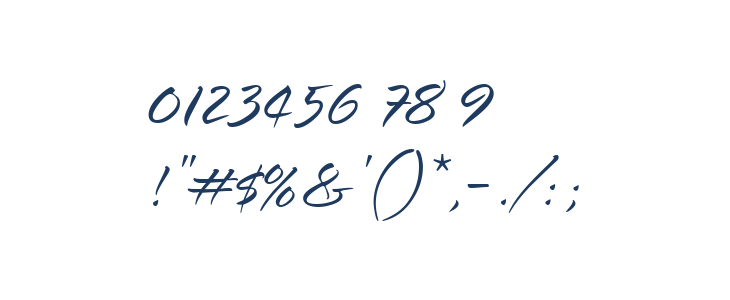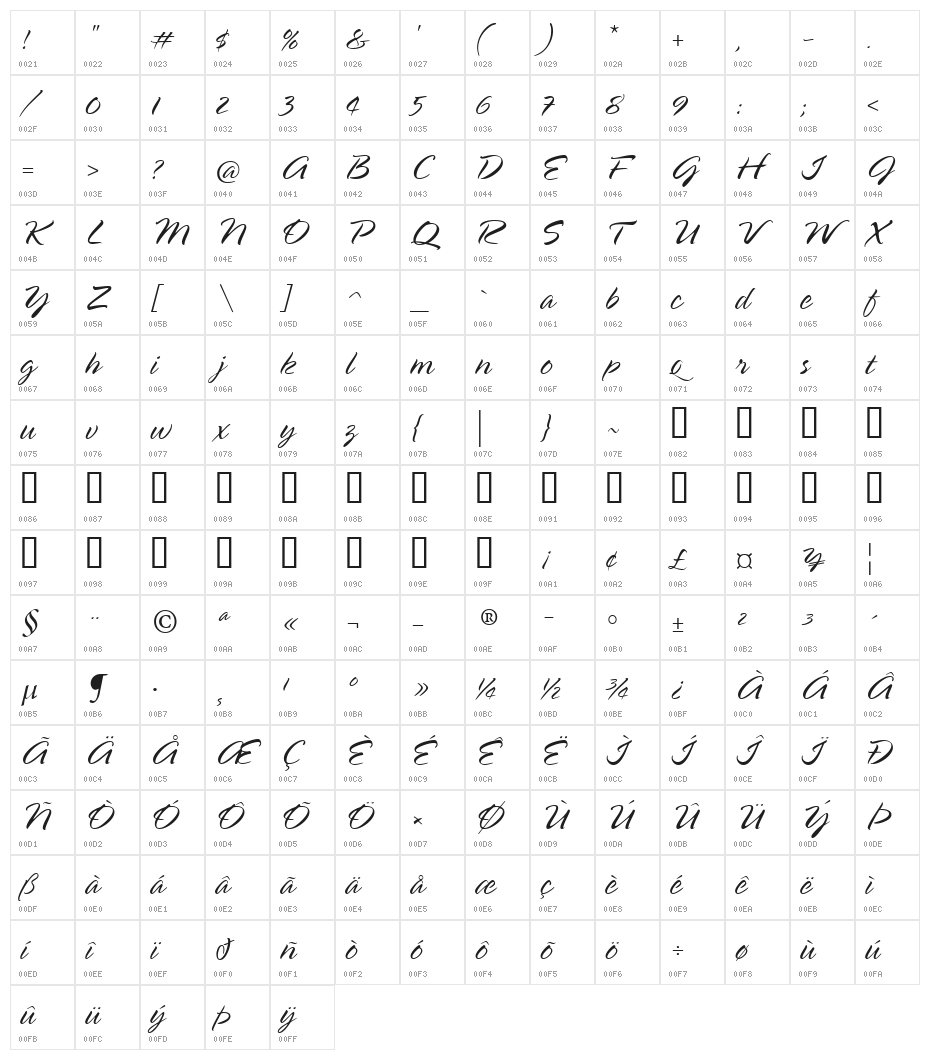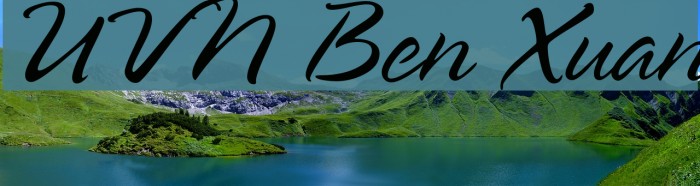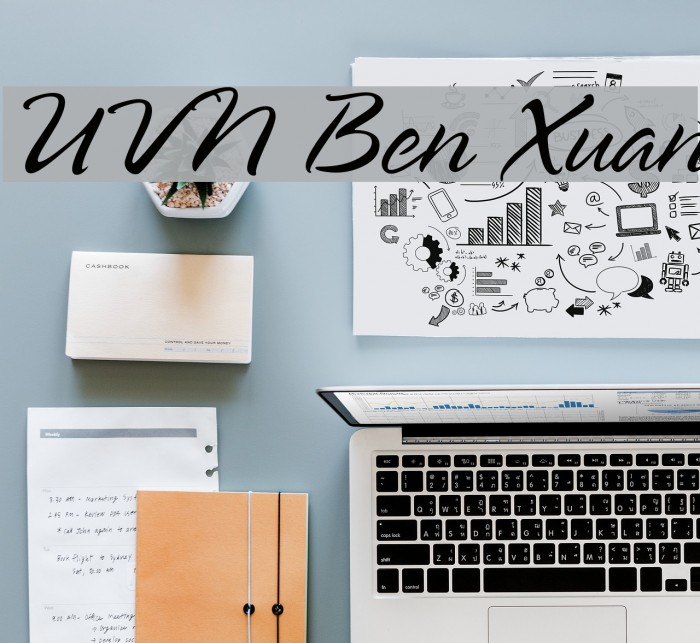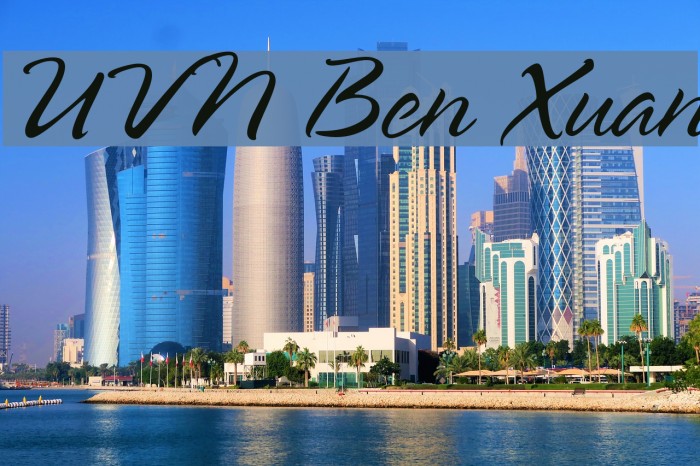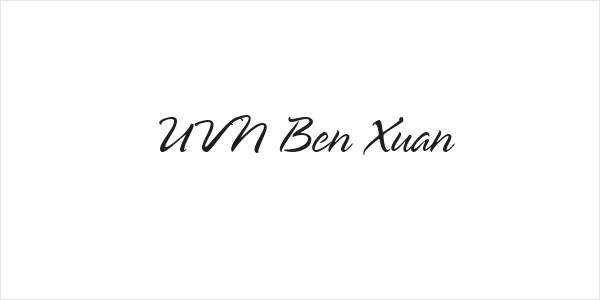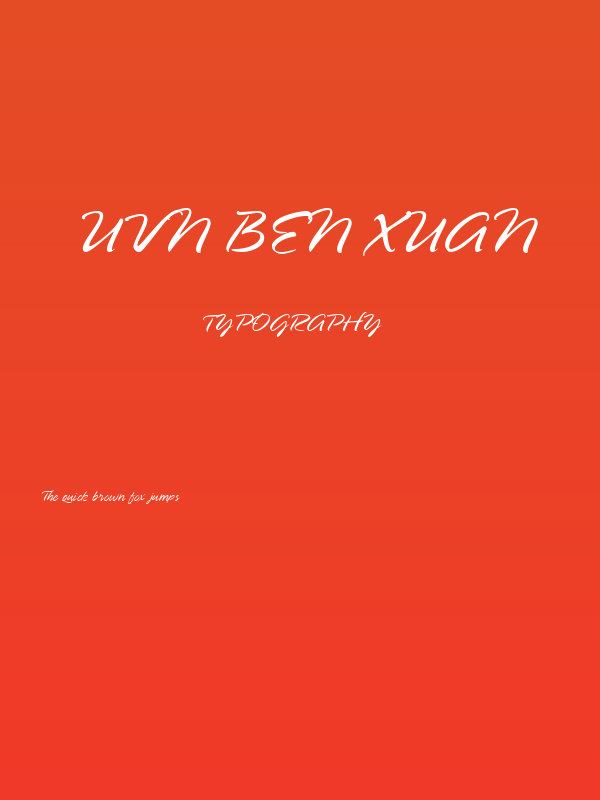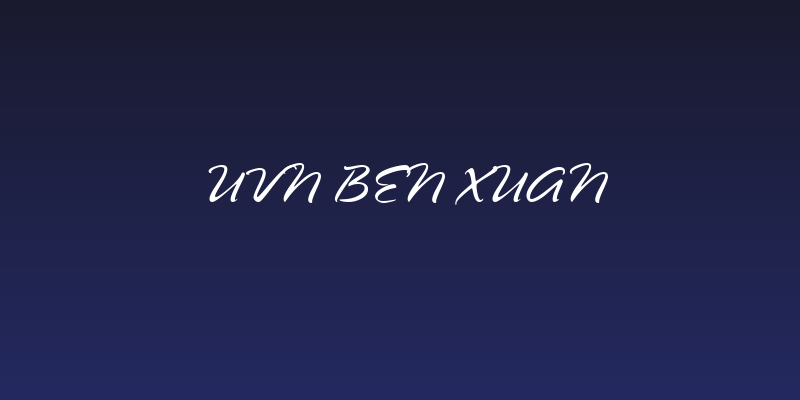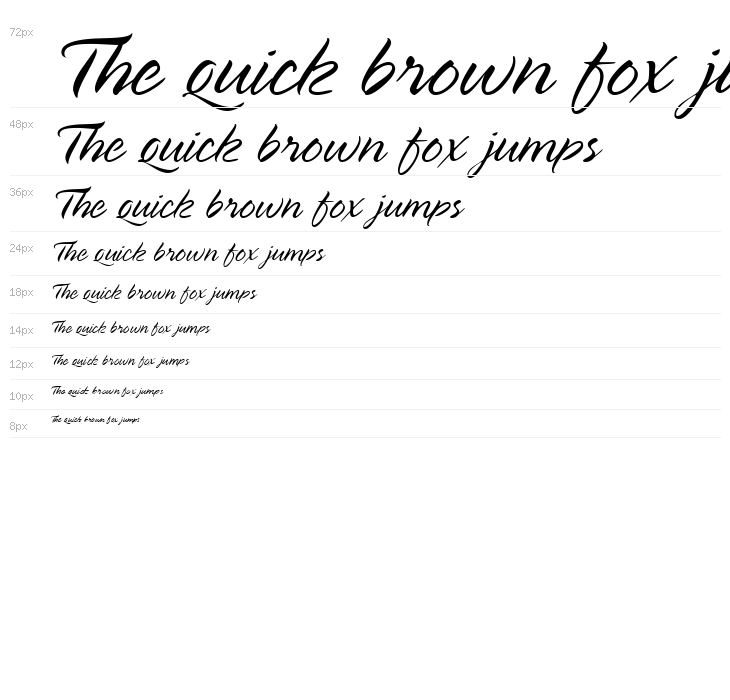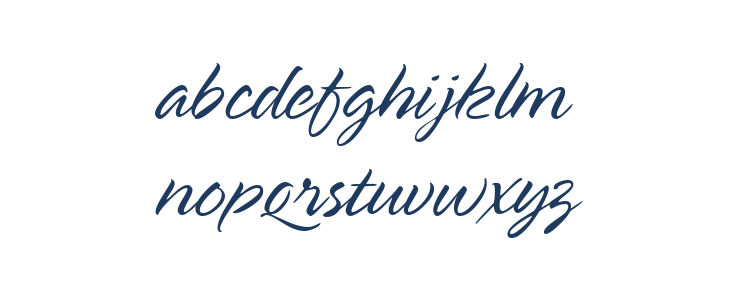
UVN Ben Xuan Font
UVN Ben Xuan Description
This font features a flowing, cursive style that mimics elegant handwriting. The characters are connected, with smooth curves and a consistent slant, giving it a dynamic and graceful appearance. The uppercase letters are bold and prominent, while the lowercase letters maintain a delicate balance with slightly elongated ascenders and descenders. The numerals and special characters complement the overall script style, maintaining the fluidity and elegance of the design. This font is ideal for projects that require a personal touch or a sophisticated aesthetic.
| Overall Style | Elegant, Handwritten |